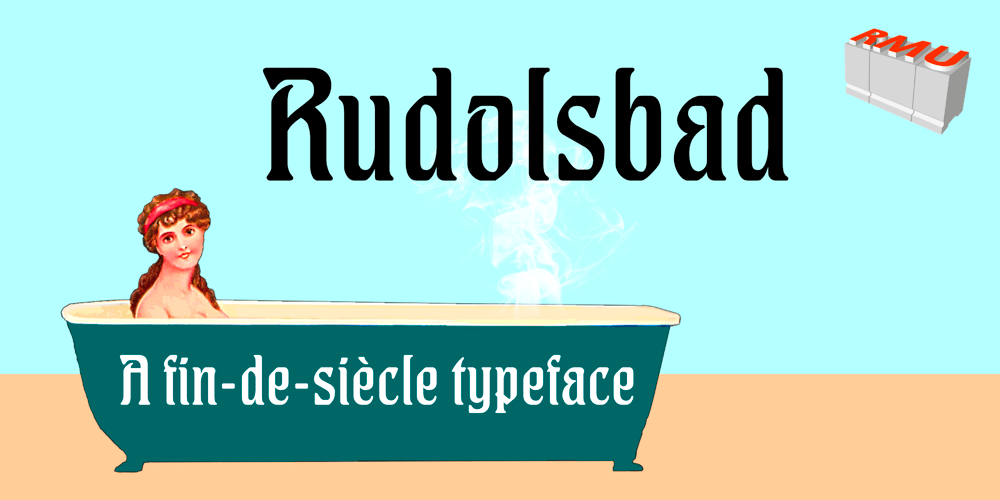
Rudolsbad Font Family was designed by Ralph M. Unger and published by RMU. Rudolsbad contains 1 styles and family package options. Inspired by the fin-de-siècle font Hohenzollern, Rudolsbad was completely redrawn und redesigned for modern use. This font contains the longs and several discretionary ligatures. That is why it is recommended to activate the OT feature discretionary ligatures. The letter H, I , and T have alternatives. The long s can be reached by either typing the integral sign ∫ or by turning the round s into the long one using the OT feature historical forms.